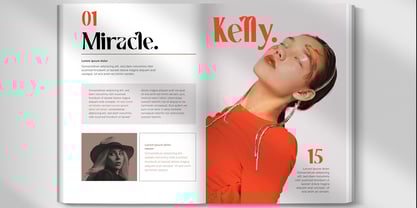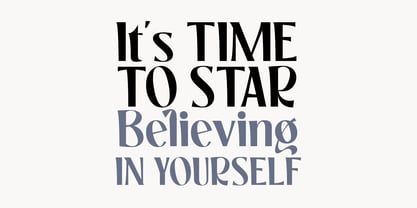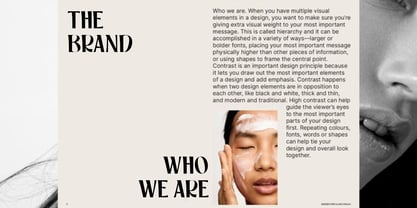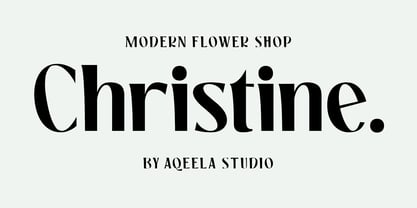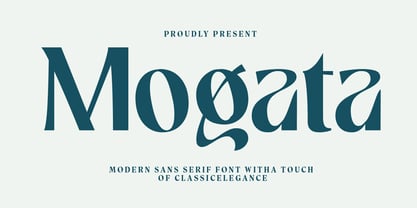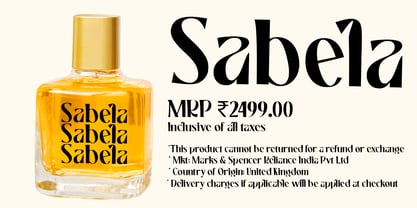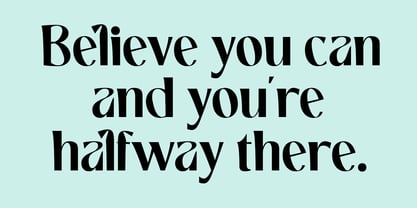
Mogata
by Aqeela Studio
The Mogata Font Family was designed by Muhammad Nasir and published by Aqeela Studio. Mogata contains 1 styles.
Mogata is a modern sans-serif font that walks a captivating line between classic elegance and contemporary style. It features clean, geometric lines reminiscent of classic typography, yet with a contemporary twist that keeps it fresh and relevant. The unexpected flourishes and subtle curves add a touch of personality and charm, making it stand out from typical sans-serif fonts. Mogata is perfect for projects that require a balance of sophistication and modern edge, such as high-end branding, editorial design, or any application that demands attention with a touch of classic refinement.
Designers: Muhammad Nasir
Publisher: Aqeela Studio
Foundry: Aqeela Studio
Design Owner: Aqeela Studio